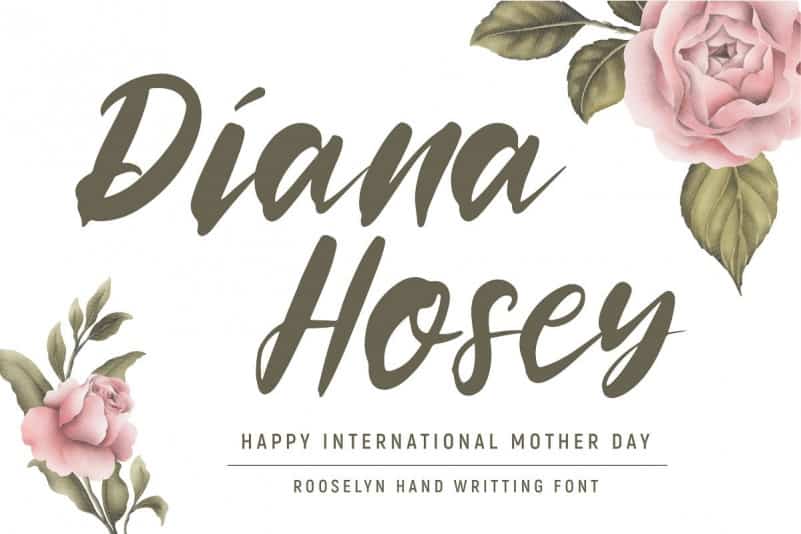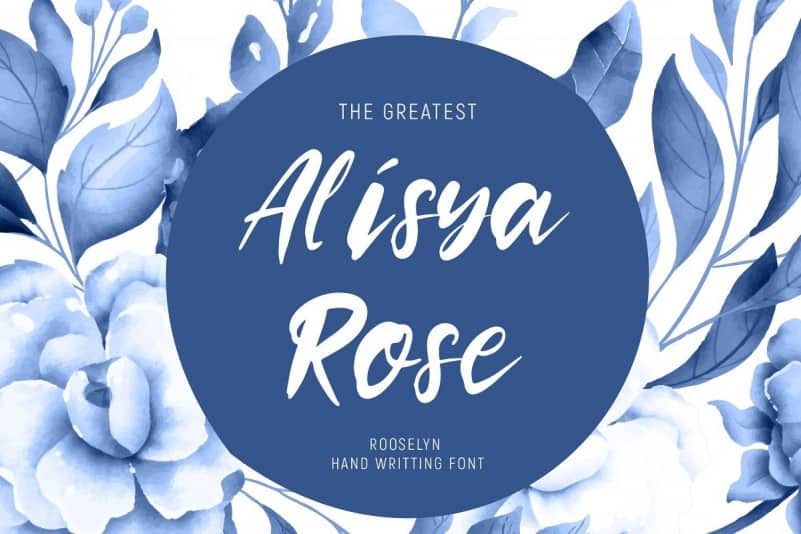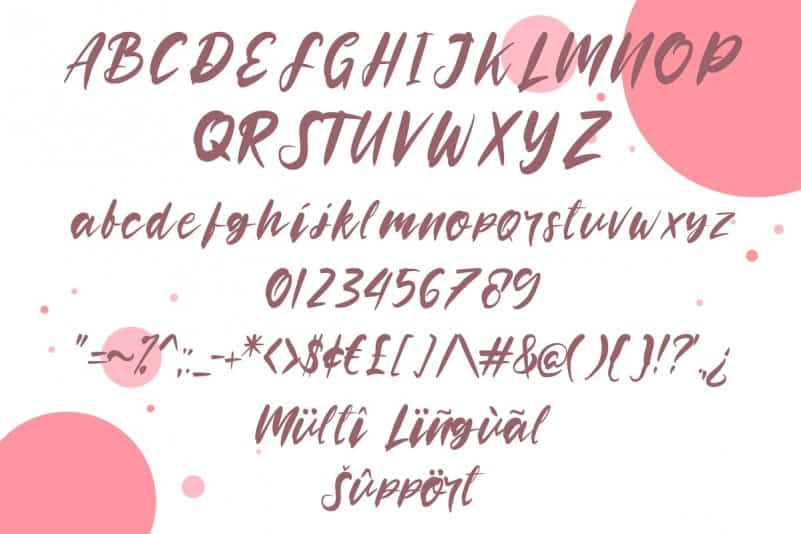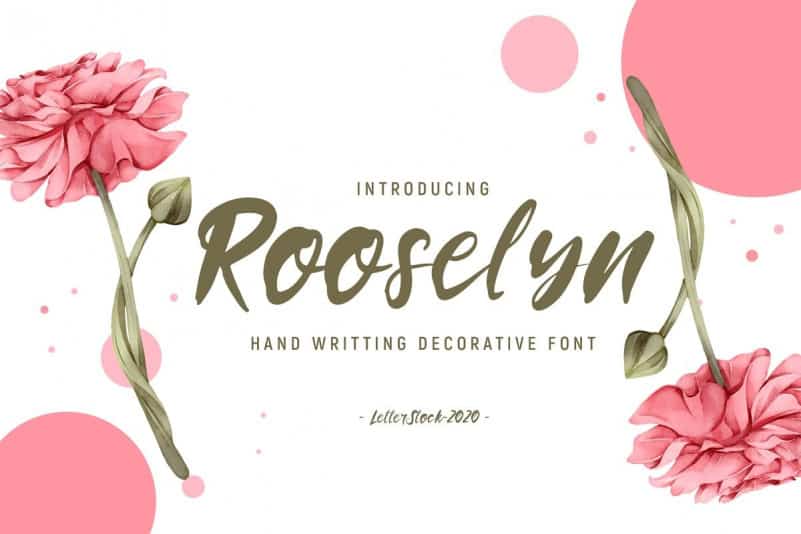
Rooselyn Brush Font
Introducing Rooselyn Brush Font. It’s modern brush font with beautiful and natural brush stroke that perfect for logo, poster, product, apparel, packaging and many more. It’s Inspired by a great lettering on some wedding invitation, and i combine to make it more decorative. I really hope you enjoy it – please do let me know what you think, comments & likes are always hugely welcomed and appreciated.